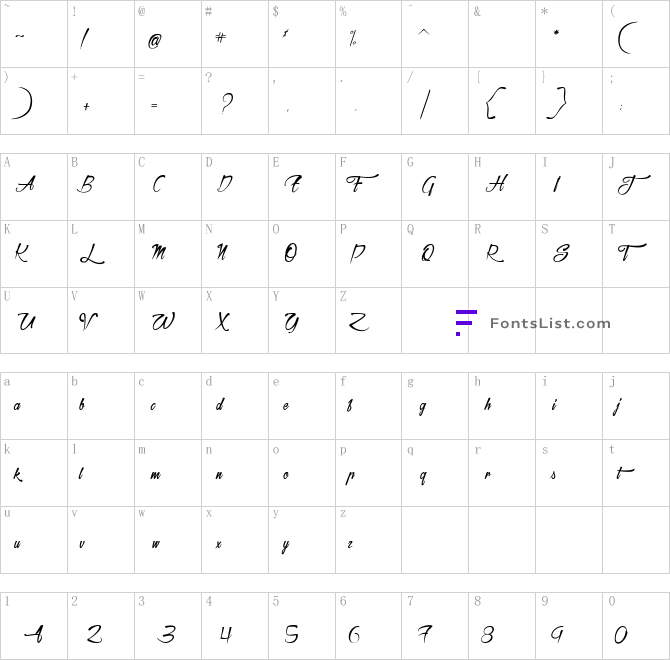
- Font Name:Atelier du Machiniste
Atelier-du-Machiniste.ttf is a very beautiful artistic font, Atelier-du-Machiniste.ttf is widely used in the design and printing of various books and pictures,Atelier-du-Machiniste.ttf has a strong visual impact,Atelier-du-Machiniste.ttf is a commonly used font in newspapers, magazines and books, and is used in posters, e-commerce Poster design, store design, logo design, font design and other fields.Atelier-du-Machiniste.